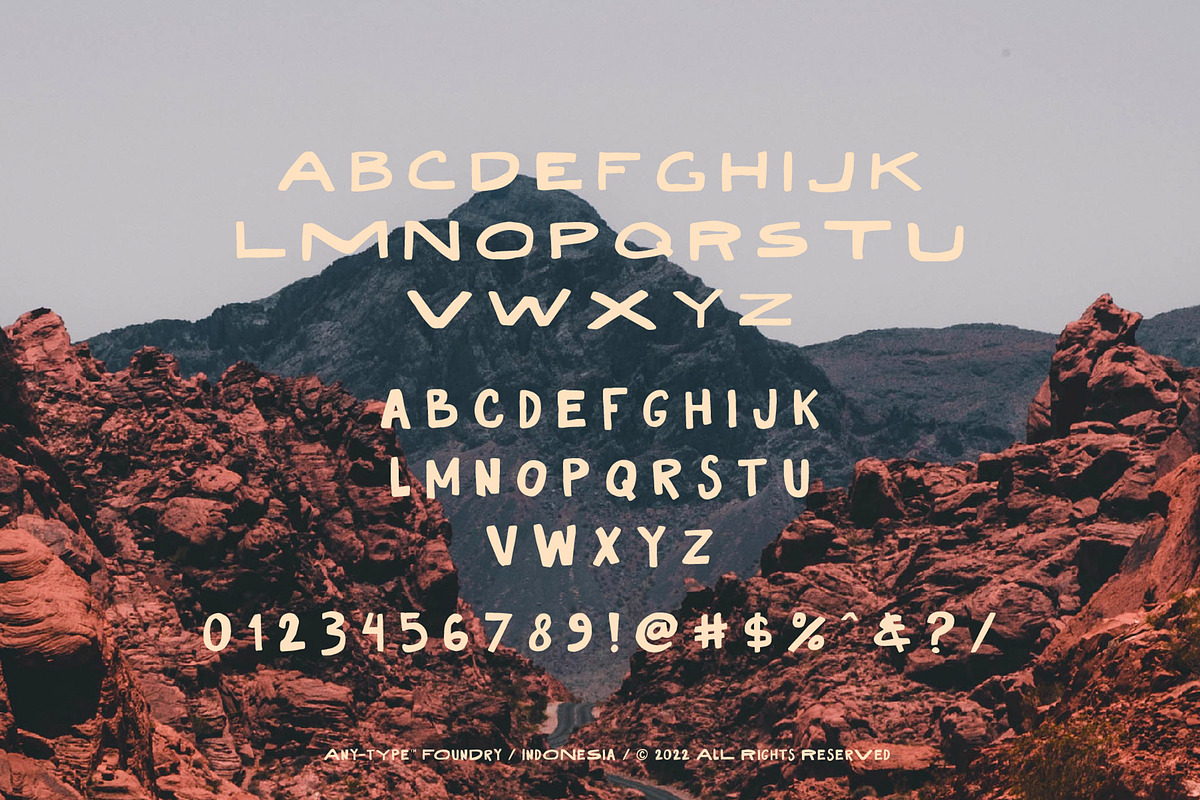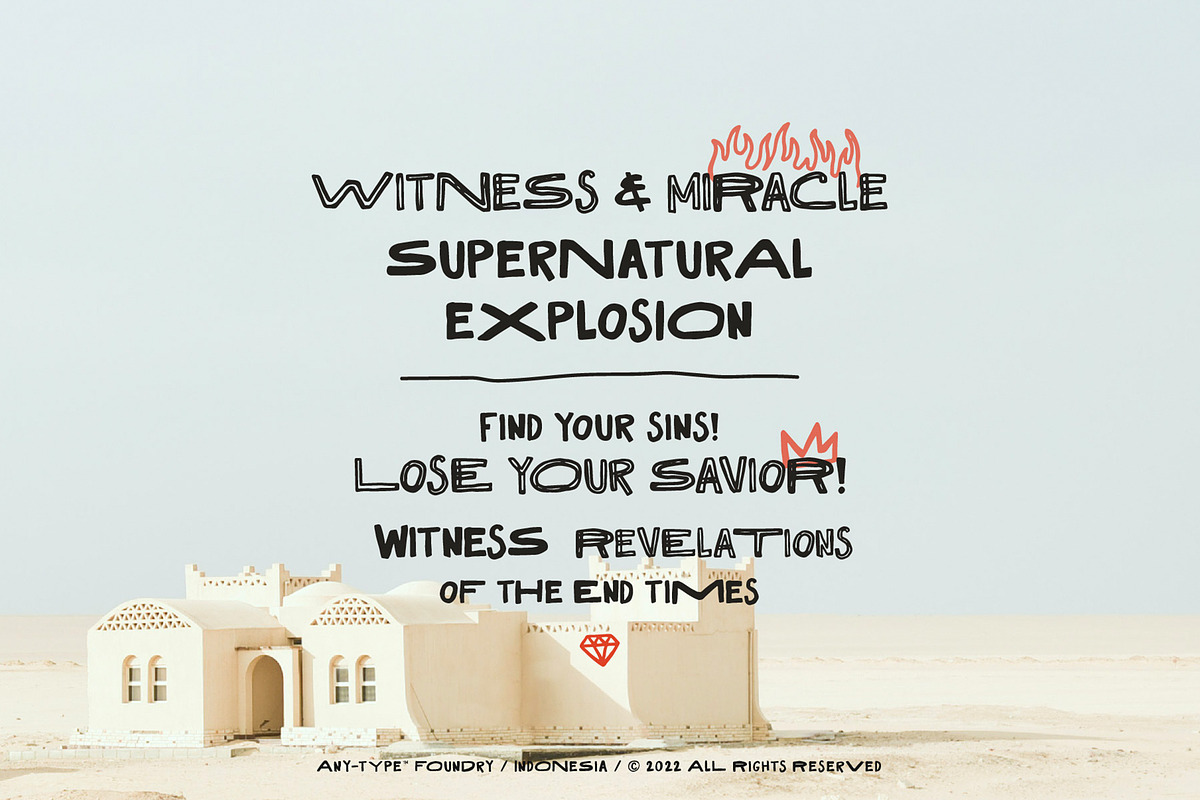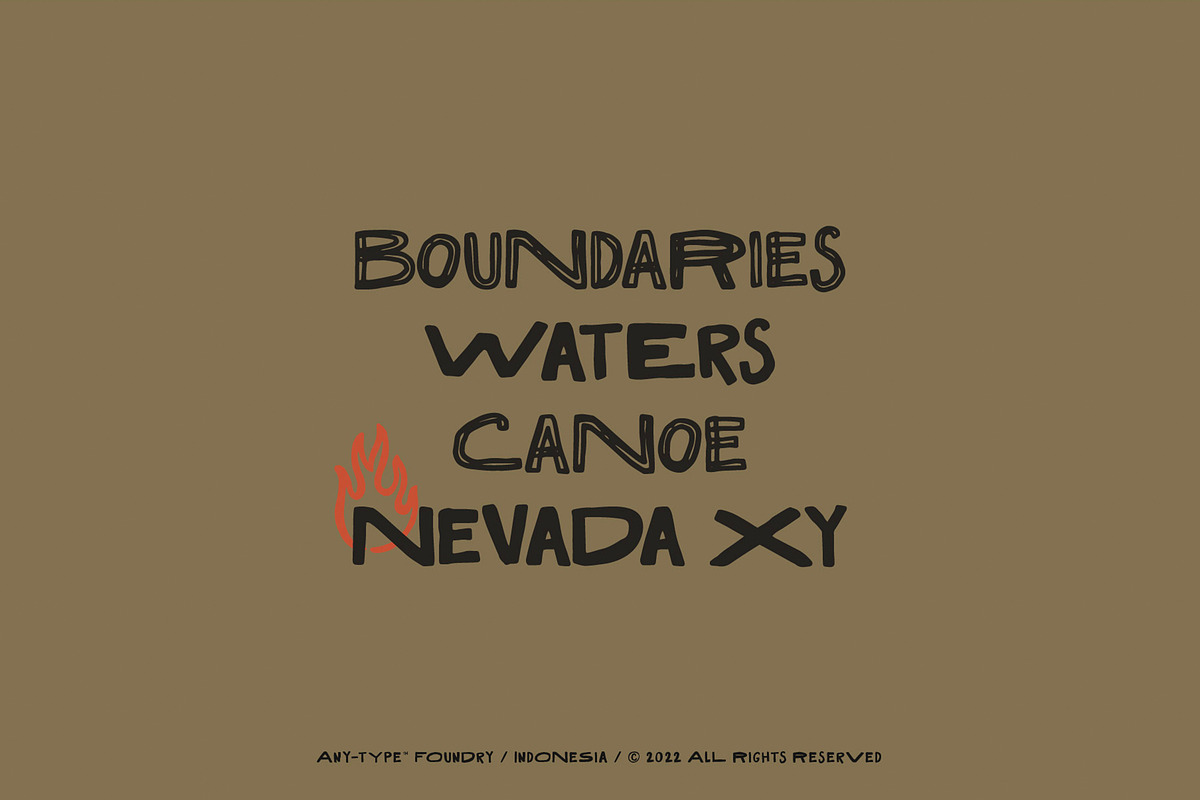
Dakota is handmade vintage sans serif font. Inspired by classic western culture, custom culture motorcycle and combining with vintage touch. It is perfect to combine in your design, especially on vintage design, poster and many more.
This fonts comes with 2 style (Filled & Outline) with opentype and truetype features also webfont format also comes with bonus doodle inside this package.